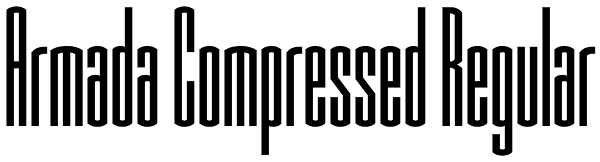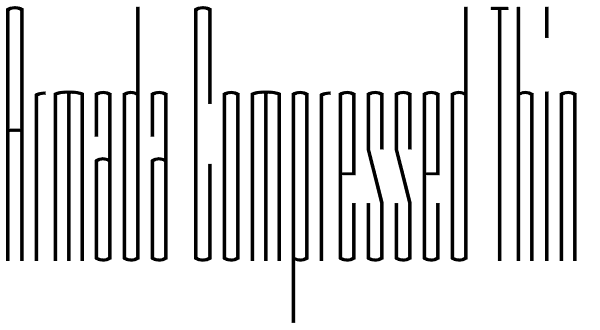
Armada
Tobias Frere-Jones began Armada in 1987. An experiment in algorithmic design, Armada follows the verticals and flat arches so often to be found in the architectural geometry of cast iron and brickwork in nineteenth-century American cityscapes. All...